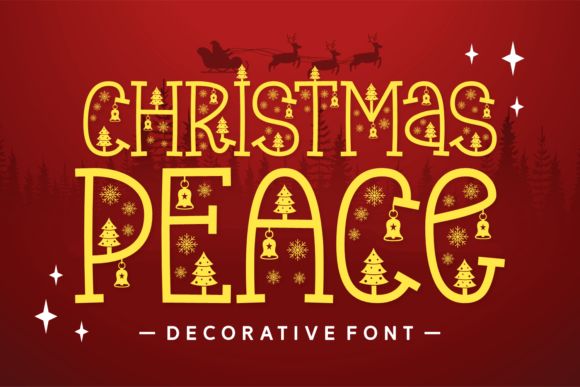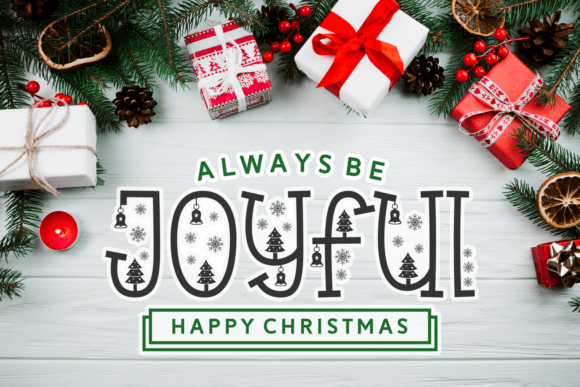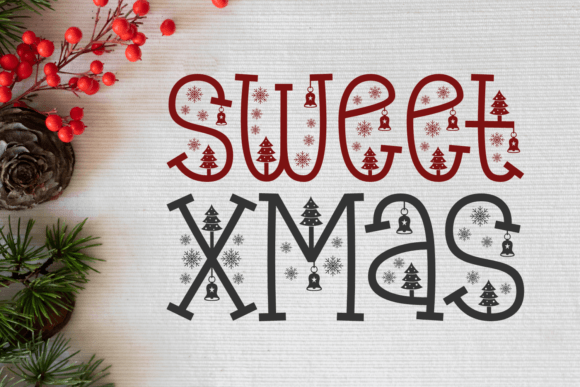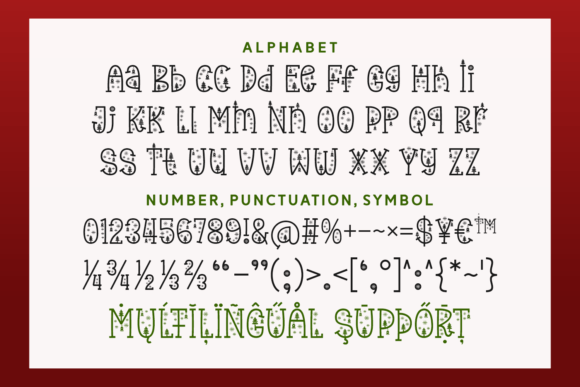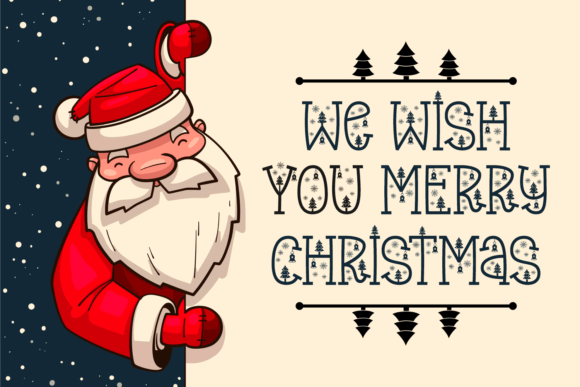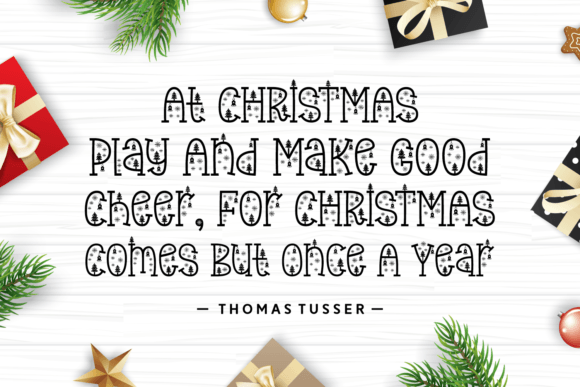
Embracing the Magic of the Season: Introducing Christmas Peace Font
As the snowflakes start to fall and the fireplace crackles to life, I find myself getting lost in the world of holiday design. The twinkling lights, the cozy atmosphere, and the joyous spirit of Christmas – it’s the perfect time to unleash my creativity and get festive. And what better way to capture the essence of the season than with a beautiful, decorative font?
Enter the Christmas Peace Font, a lovely addition to any designer’s toolkit. This whimsical and festive font is designed to bring a touch of warmth and coziness to your designs, making them stand out from the crowd. Whether you’re creating holiday cards, gift tags, or social media graphics, the Christmas Peace Font is sure to add a special touch of magic to your projects.
- Unique Characteristics: The Christmas Peace Font features a distinctive, hand-drawn design with intricate details and ornaments, adding a touch of elegance and festivity to any text.
Designer Review: Christmas Peace Font
I recently had the chance to work with the “Christmas Peace Font” and here’s my honest take on it.
- The font’s warm and inviting feel perfectly captures the spirit of the holiday season.
- The unique character set and ornate details add a touch of elegance and sophistication.
- The font’s legibility is excellent, making it suitable for a wide range of applications, from signage to digital displays.
- The font may be too ornate for certain applications, such as body text or large blocks of text.
- The character set is not as comprehensive as some other fonts, which may limit its use in certain contexts.
The “Christmas Peace Font” is a beautiful and unique font that perfectly captures the magic of the holiday season. While it may have some limitations, it’s an excellent choice for applications where a touch of elegance and sophistication is desired. With some careful consideration of its use, I’d highly recommend this font to designers looking to add some holiday cheer to their projects.
Tips for Getting the Most Out of the Christmas Peace Font
To get the most out of the Christmas Peace font, try the following:
Pair it with festive colors and patterns to create a cohesive holiday look.
Use it in combination with other holiday-themed fonts for a unique and eye-catching effect.
Experiment with different font sizes and styles to add visual interest to your design.
The Christmas Peace font is perfect for:
Holiday greeting cards and invitations.
Christmas party decorations and signage.
Seasonal marketing materials and advertisements.
Alternatives to Christmas Peace Font
Great Vibes is a beautiful, handwritten script font perfect for creating a warm and inviting atmosphere. It’s ideal for use in holiday cards, invitations, and packaging designs.
Compared to Christmas Peace Font, Great Vibes has a more casual and relaxed feel, making it suitable for a wider range of designs. While Christmas Peace Font is more formal and elegant, Great Vibes is perfect for creating a cozy and intimate atmosphere.